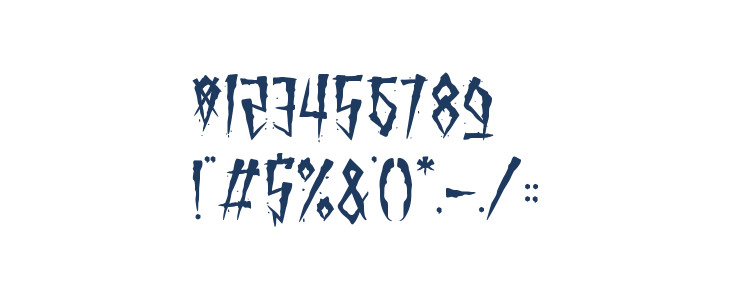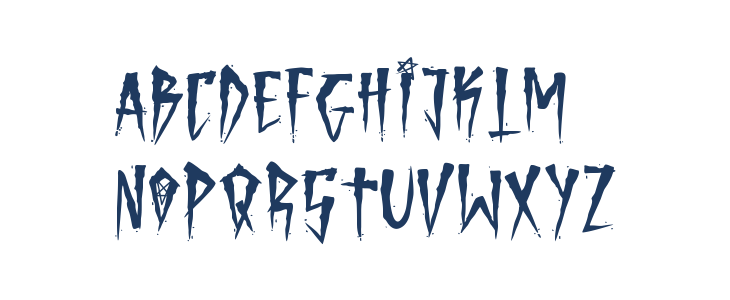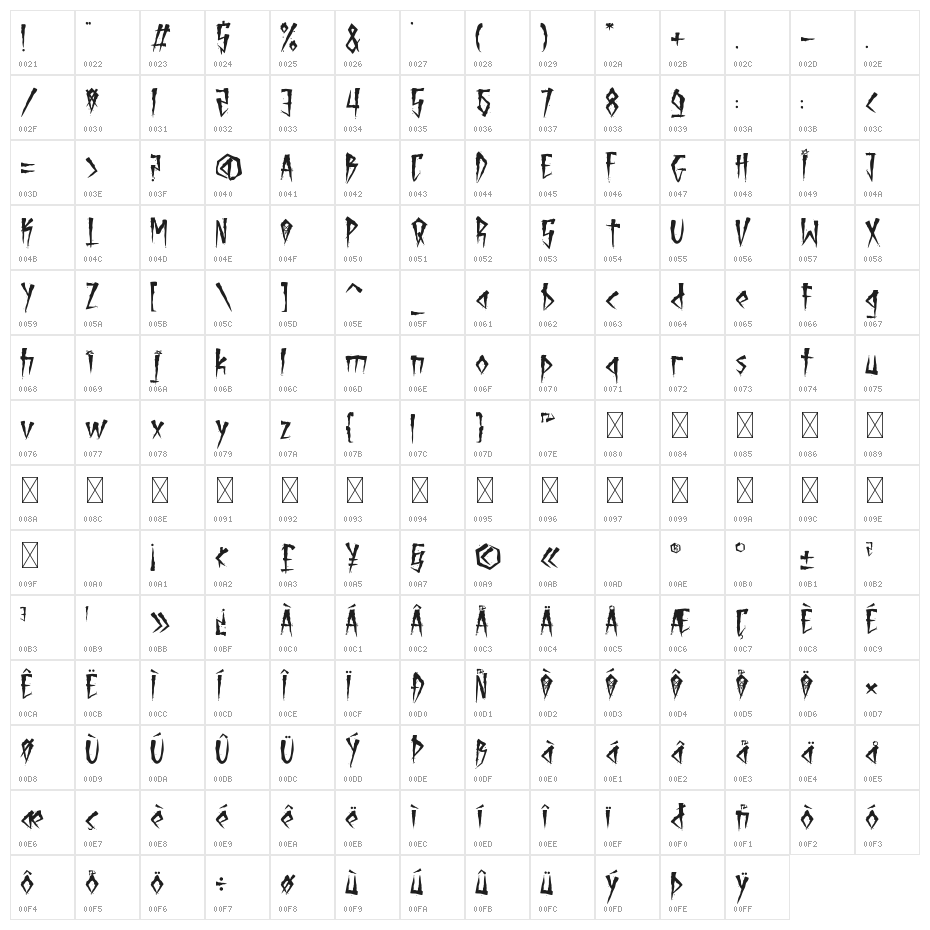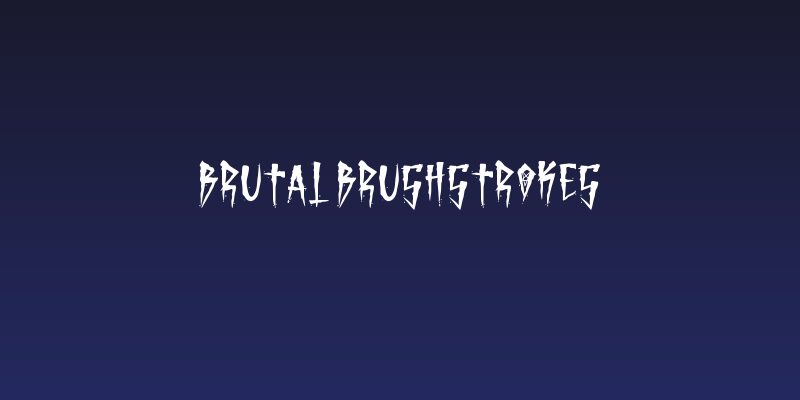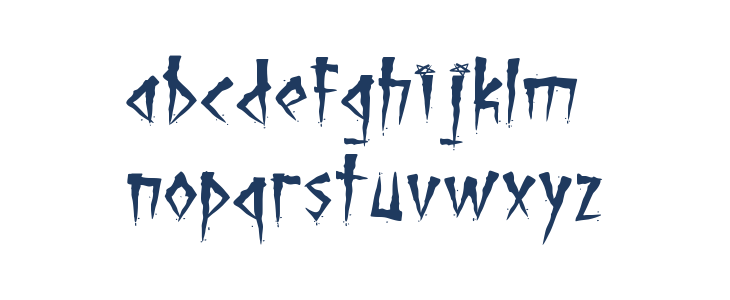
Brutal Brushstrokes Font
Brutal Brushstrokes Description
A highly expressive, jagged, and rough brushstroke font with irregular, spiky letterforms and splatter-like accents, evoking a raw, hand-drawn aesthetic.
| Overall Style | Brutalist, Grunge, Decorative |
| Use Case | Headlines, Posters, Logos, Event Promotions |
| Proposed Projects | Horror posters, music album covers, Halloween event flyers, rebellious branding, graffiti-inspired art. |